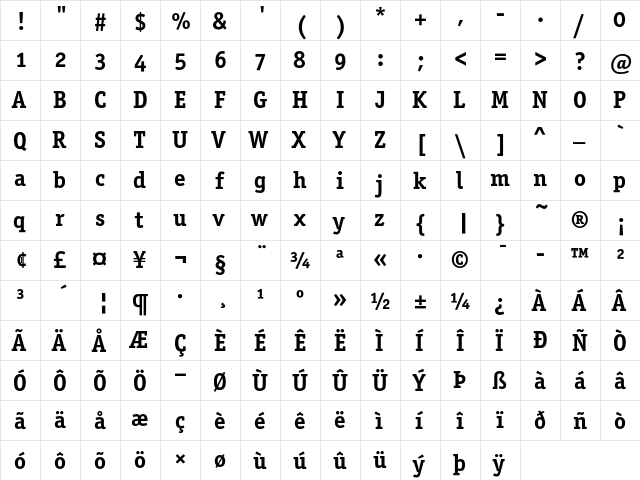
Officina Serif ITC Bold OS
Design Context for Officina Serif ITC Typeface
Officina Serif ITC brings classic typographic sensibility to the table — its serifs and measured letterforms reflect centuries of print heritage. The heavy weight commands attention and anchors typographic hierarchies.
Pro Tip: Set Officina Serif ITC with slightly loose tracking in headlines to let each letterform's detail read clearly at display sizes.